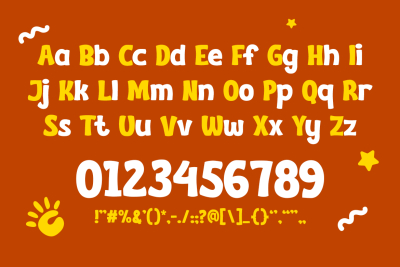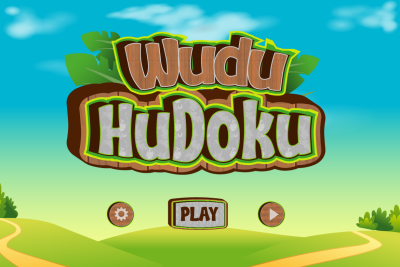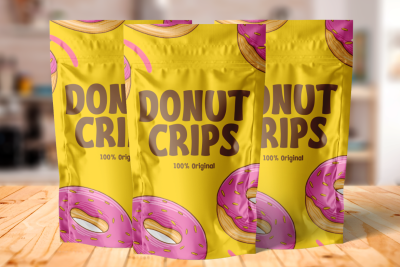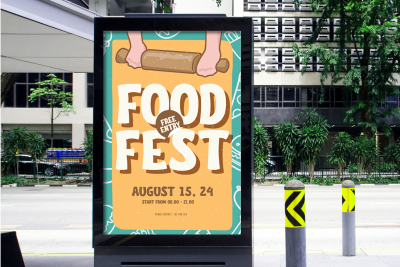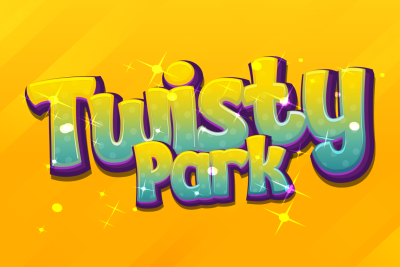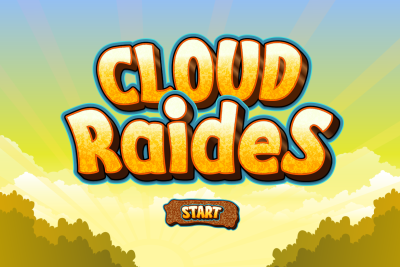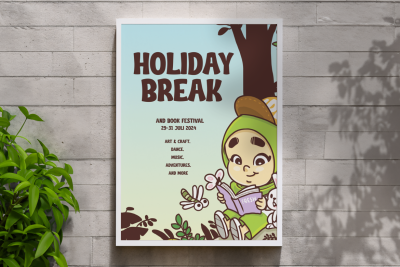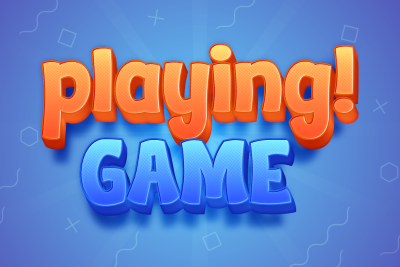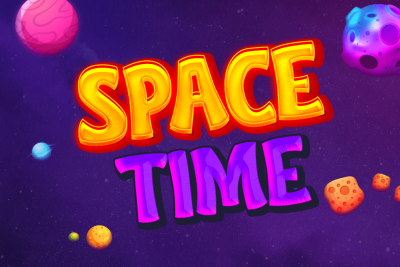
Gaming Font Piperland offers a playful and friendly aesthetic thatโs perfect for a wide range of creative projects. Its rounded edges and smooth, bold strokes give it a charming personality that instantly grabs attention. Whether you’re designing for a kid-friendly game, colorful branding, or imaginative posters, Piperland’s delightful style will elevate your visuals and make them unforgettable.
This font was designed with fun in mind, making it ideal for gaming interfaces, childrenโs storybooks, and lively advertisements. Additionally, Piperlandโs high readability ensures it works well in both large and small sizes. This means your content will look great, whether itโs a massive game title or a detailed UI element. Furthermore, its cheerful vibe appeals to audiences of all ages, bringing joy and positivity to every project.
When it comes to creating a memorable design, Gaming Font Piperland delivers. Its versatility allows it to adapt seamlessly to various themes, making it a reliable choice for designers aiming to add a touch of whimsy to their work.
Why Gaming Font Piperland Is Perfect for Your Creative Projects
Piperland isnโt just a gaming fontโitโs a creative tool that brings life and energy to your designs. Its soft, rounded shapes evoke a sense of friendliness, making it an excellent choice for logos, promotional materials, and user-friendly app interfaces. Moreover, Piperland works wonderfully with colorful and playful visuals, helping your projects stand out in competitive markets.
In addition to its aesthetic appeal, Piperland provides flexibility for both digital and print designs. For instance, it performs exceptionally well in vibrant social media posts, interactive game banners, and engaging merchandise. Transitioning between mediums is effortless, ensuring that your design remains consistent and impactful across all platforms.
Another advantage of Gaming Font Piperland is its ability to enhance storytelling. Its cheerful appearance pairs perfectly with narratives that aim to inspire fun and imagination. Whether youโre crafting a game set in a magical world or designing branding for a playful product line, Piperland ensures your message is delivered in the most captivating way.
Let Gaming Font Piperland become the centerpiece of your creative projects. With its friendly design and remarkable versatility, itโs the ideal choice for adding joy and charm to your visuals.